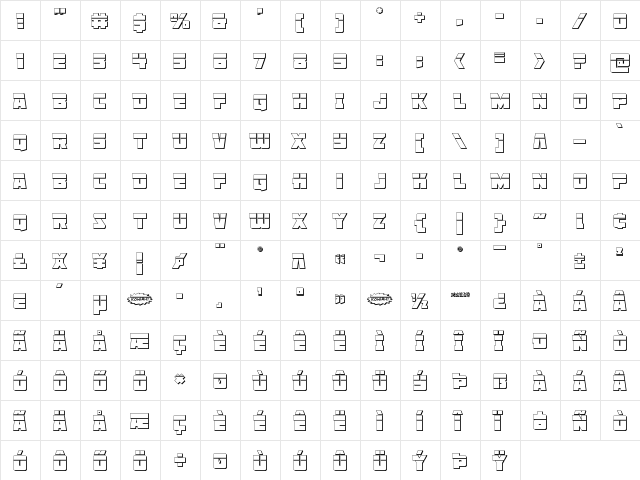
Liberty Legion 3D Laser Regular
Design Context for Liberty Legion 3D Laser Typeface
Liberty Legion 3D Laser is a composed and adaptable typeface that performs quietly and consistently across a wide range of design contexts.